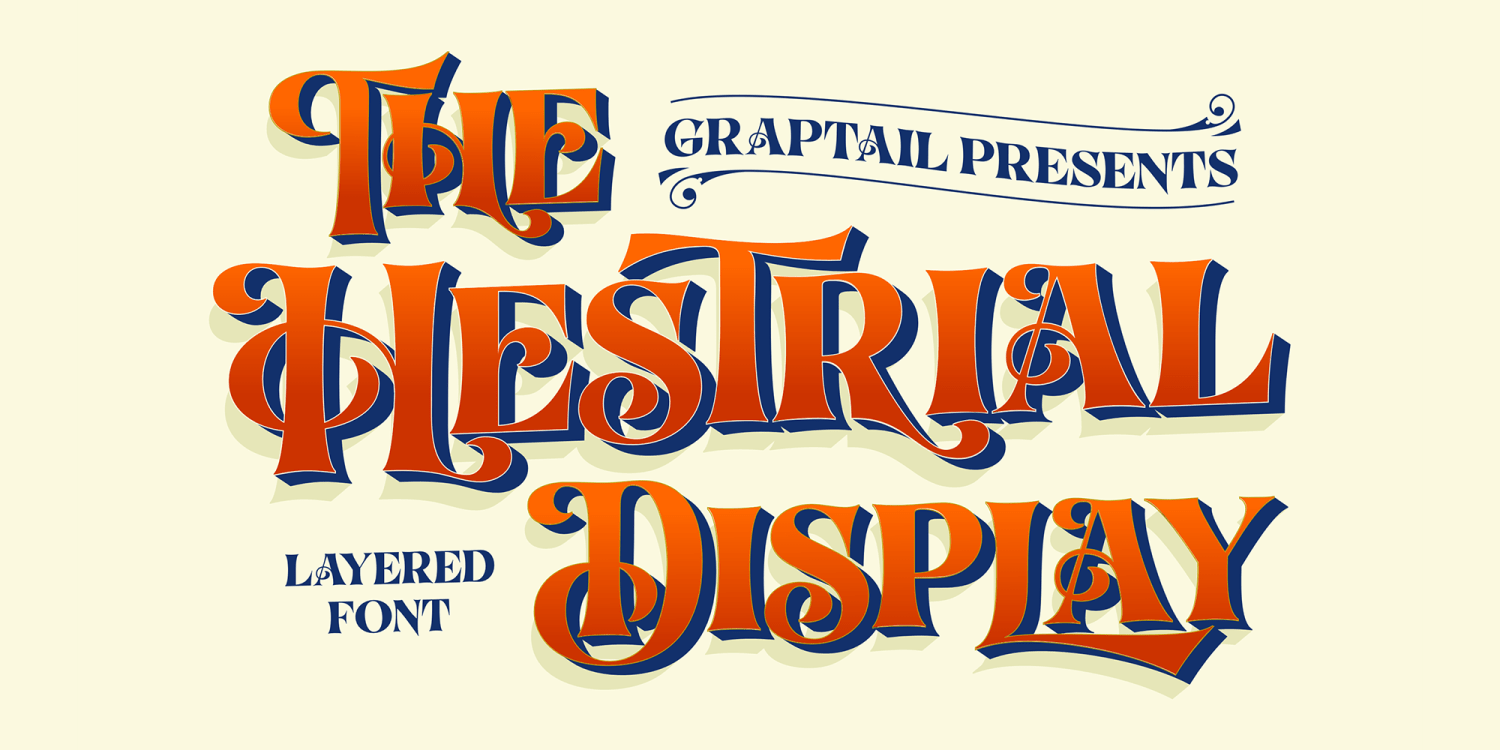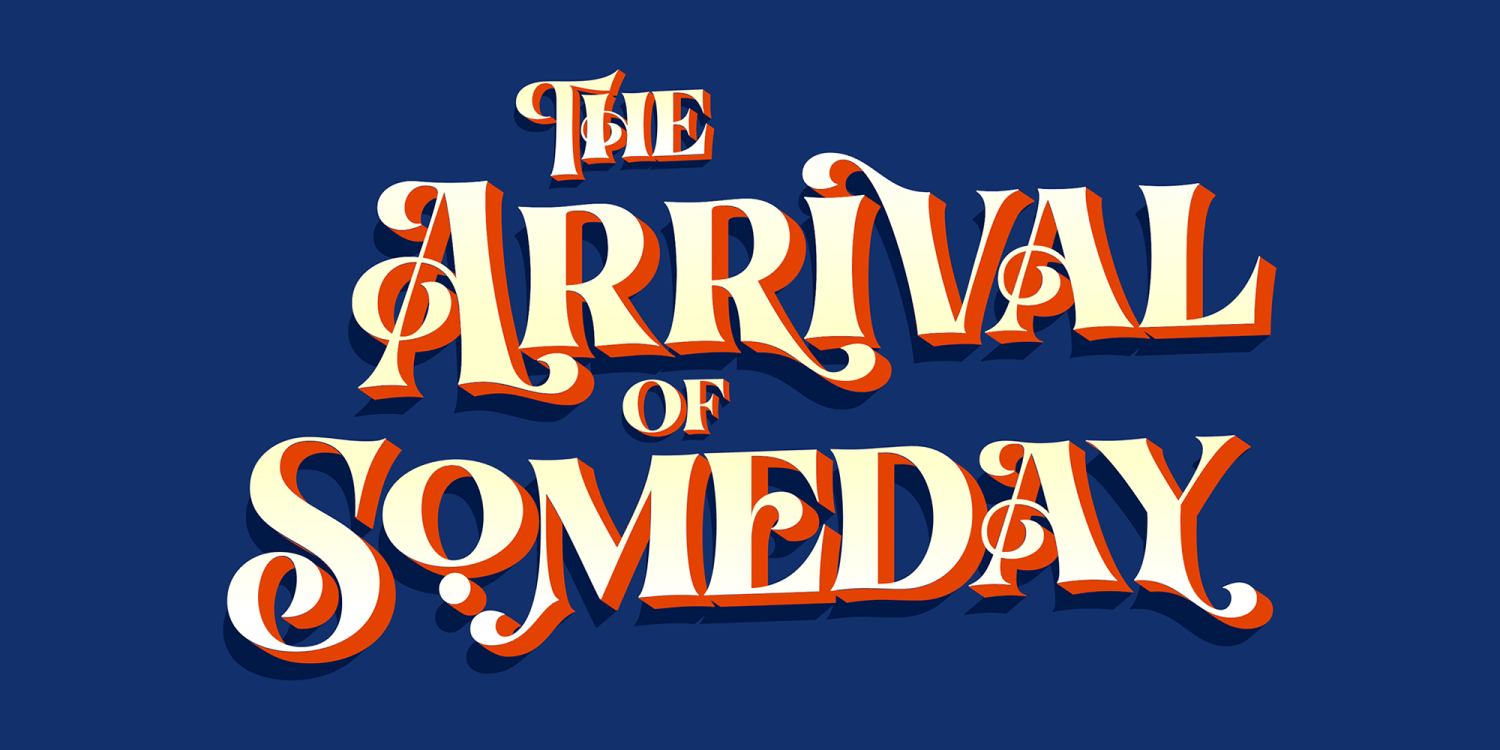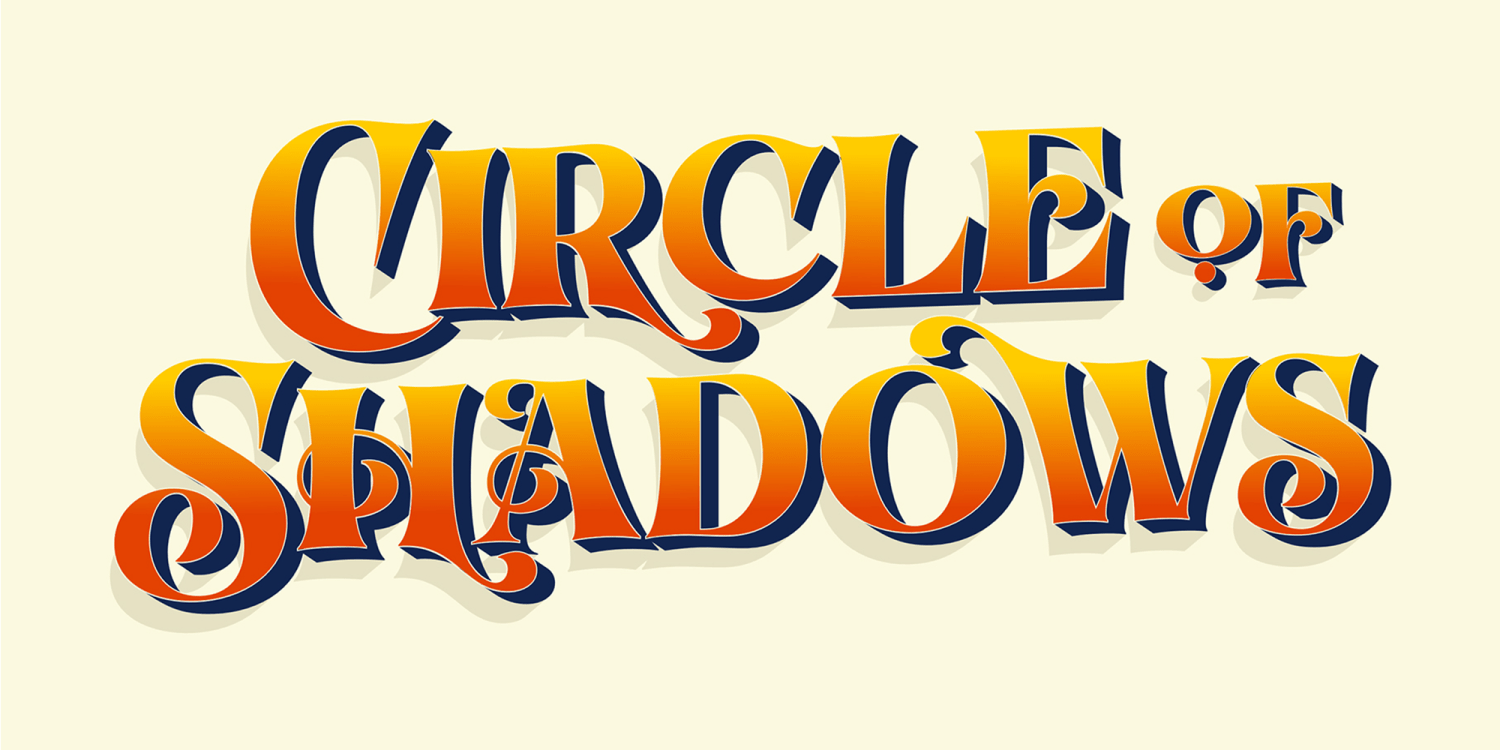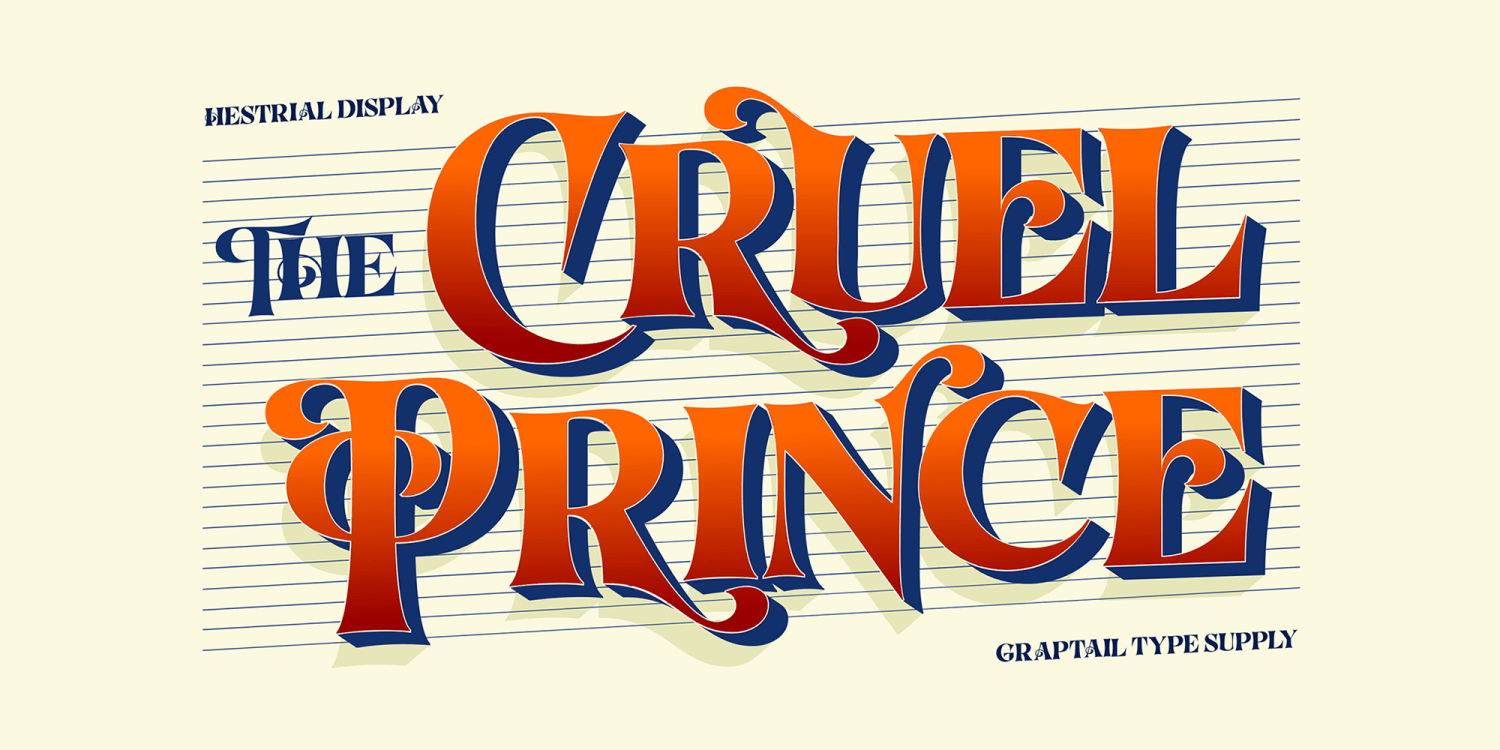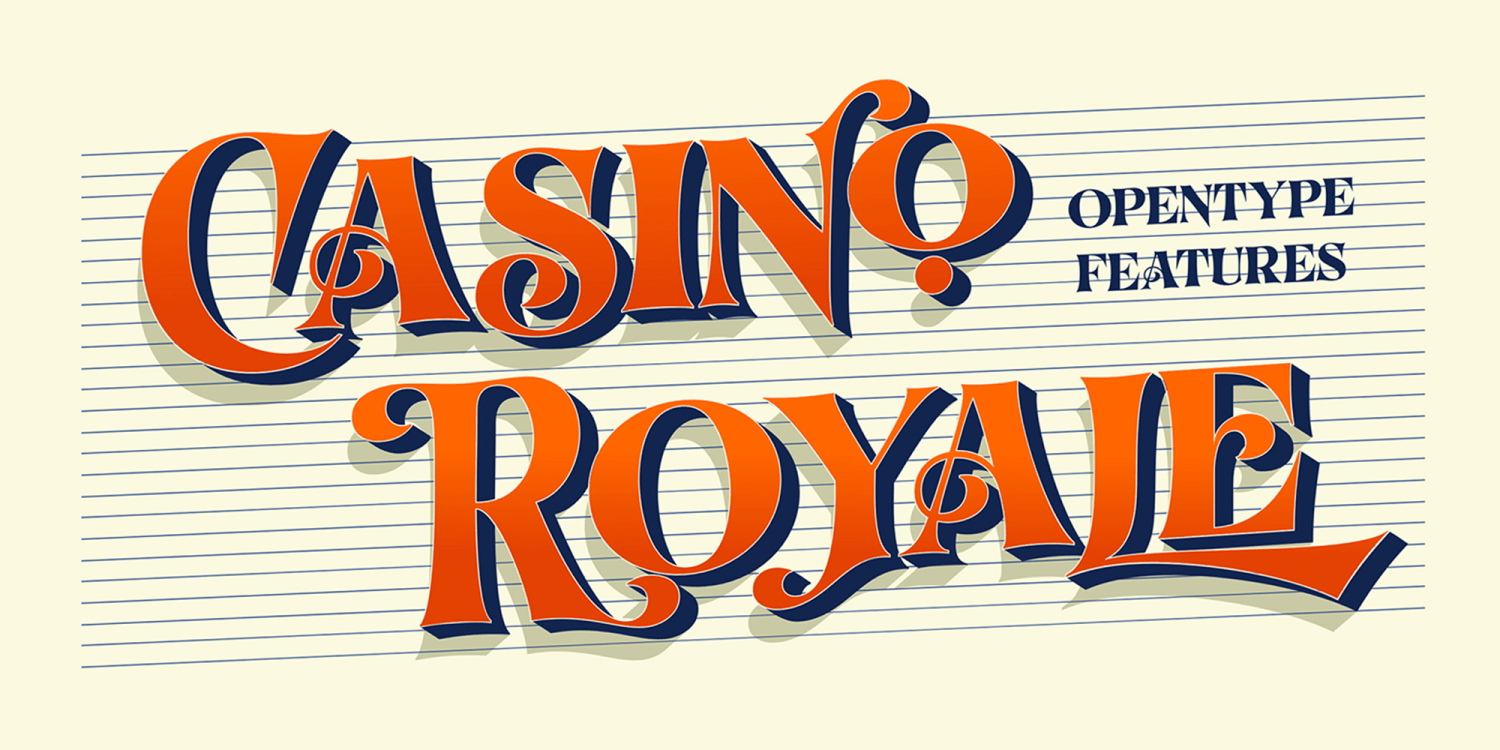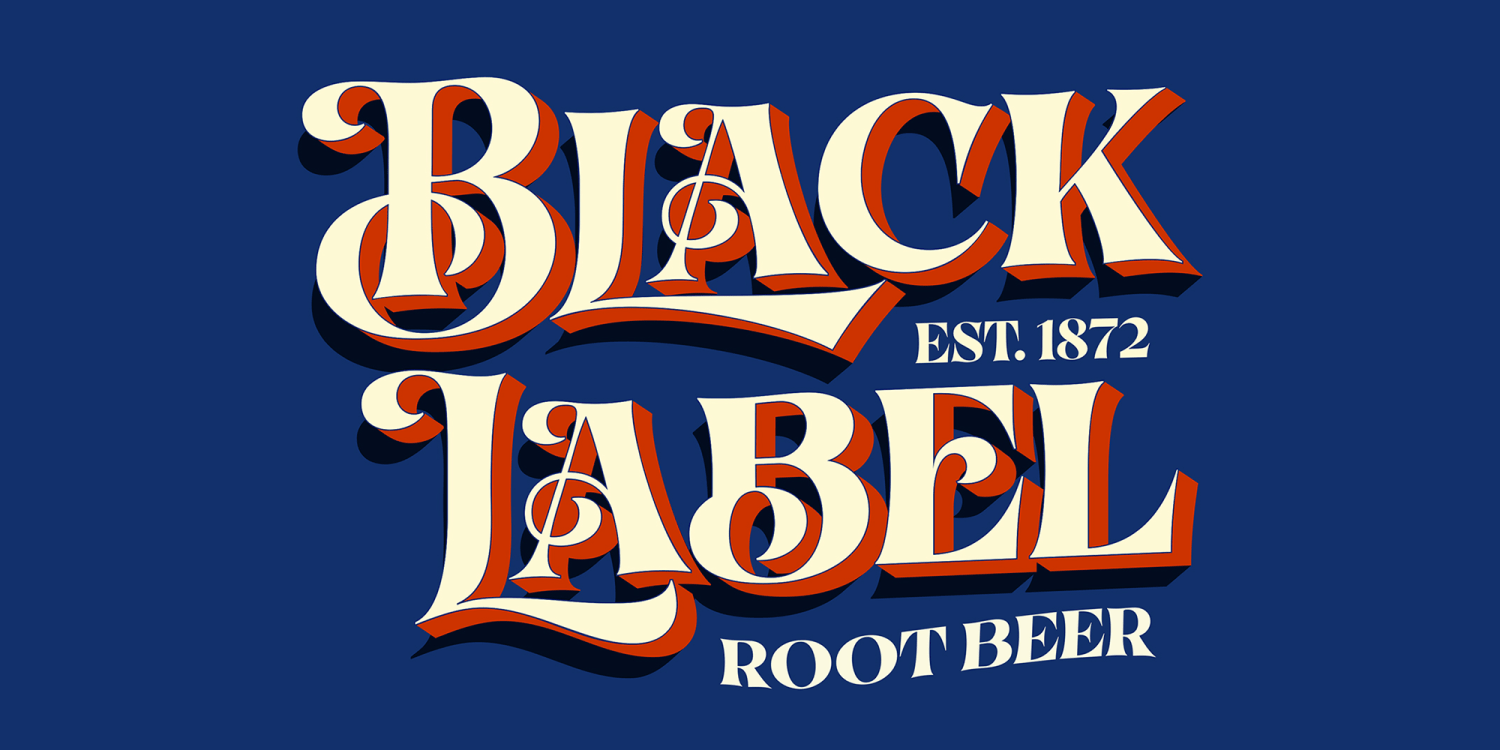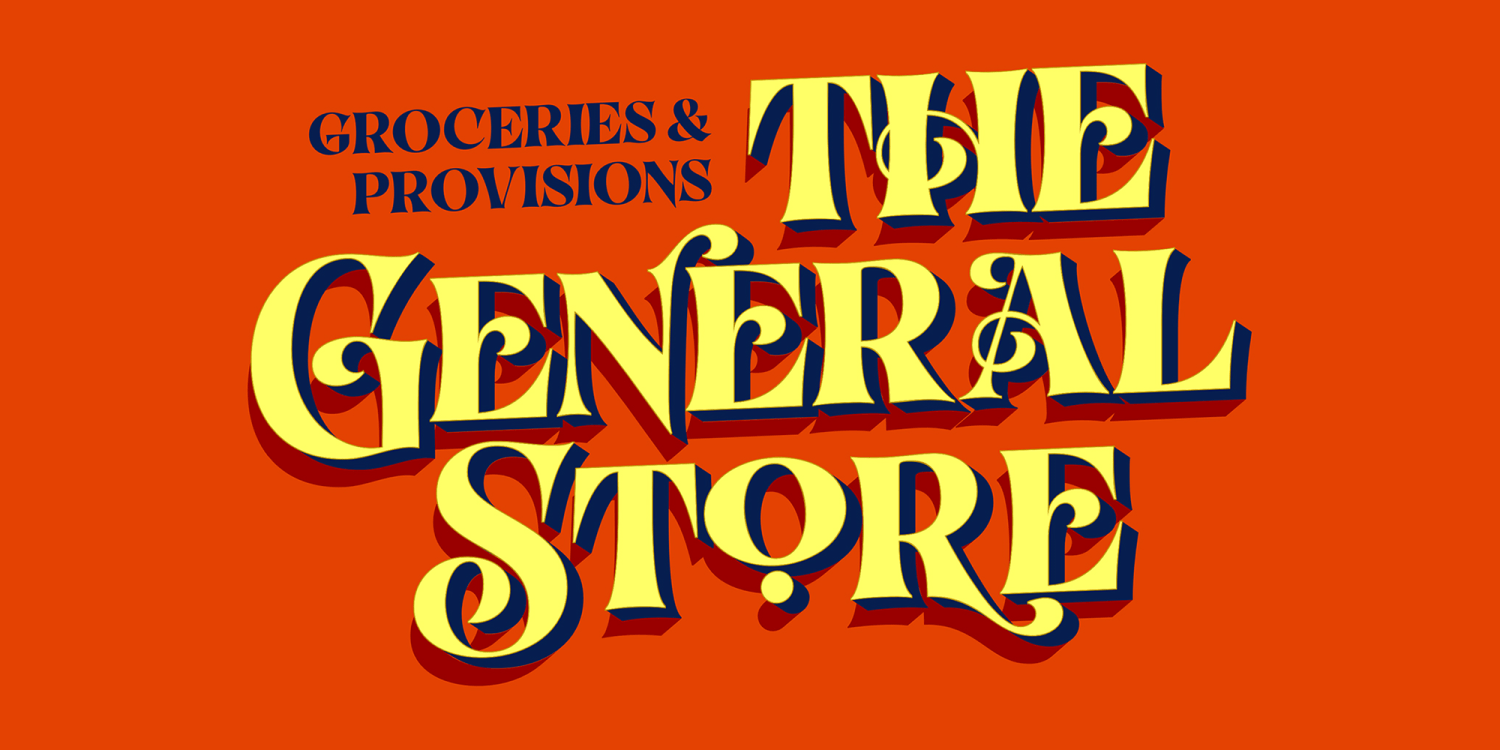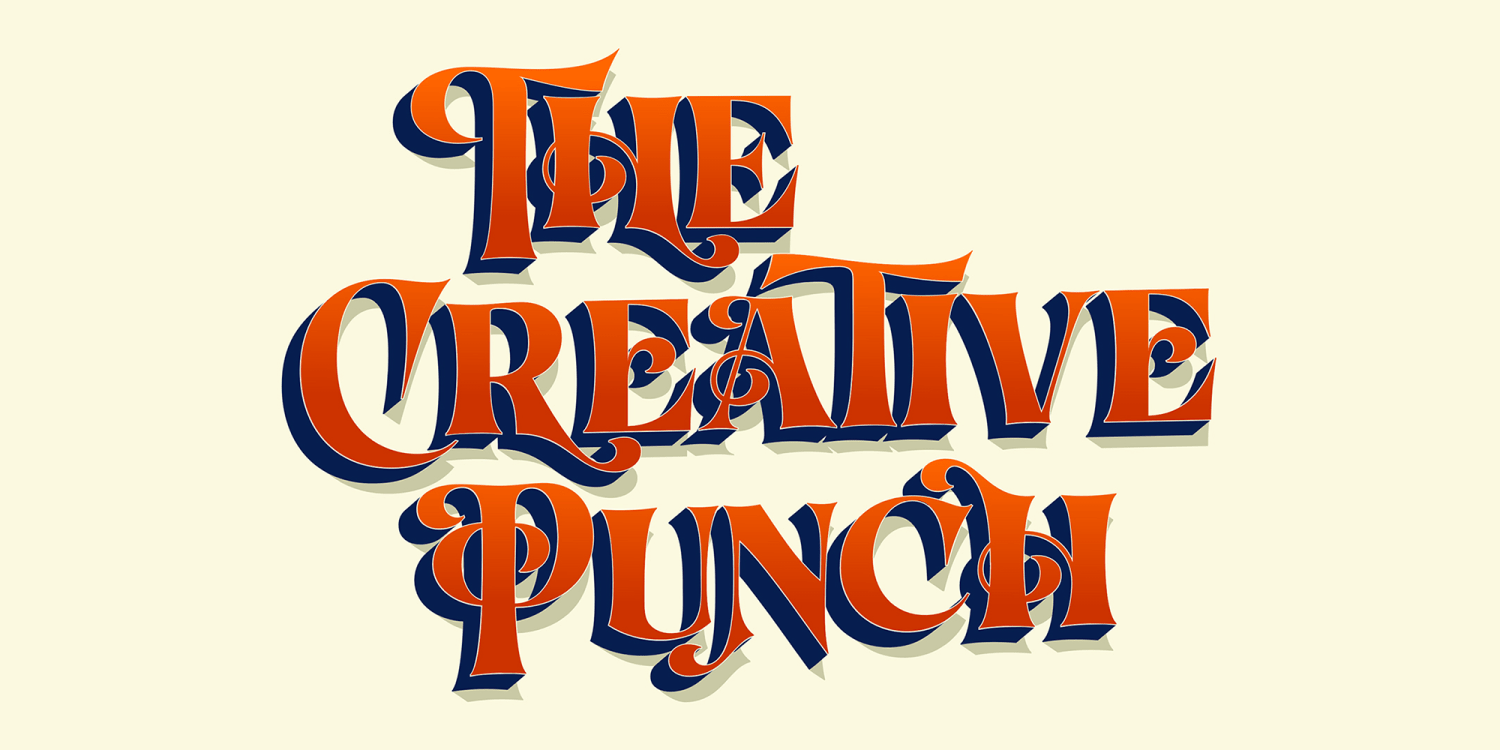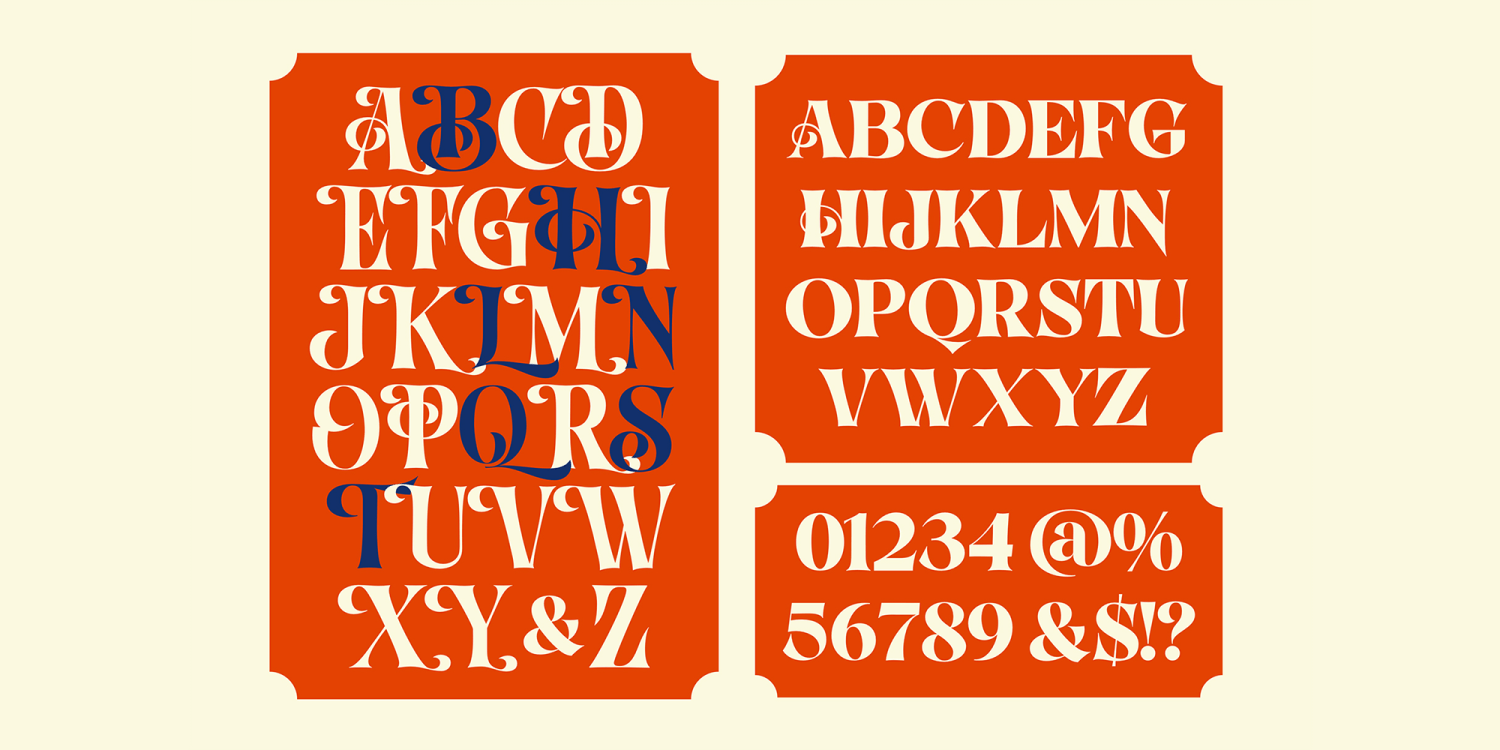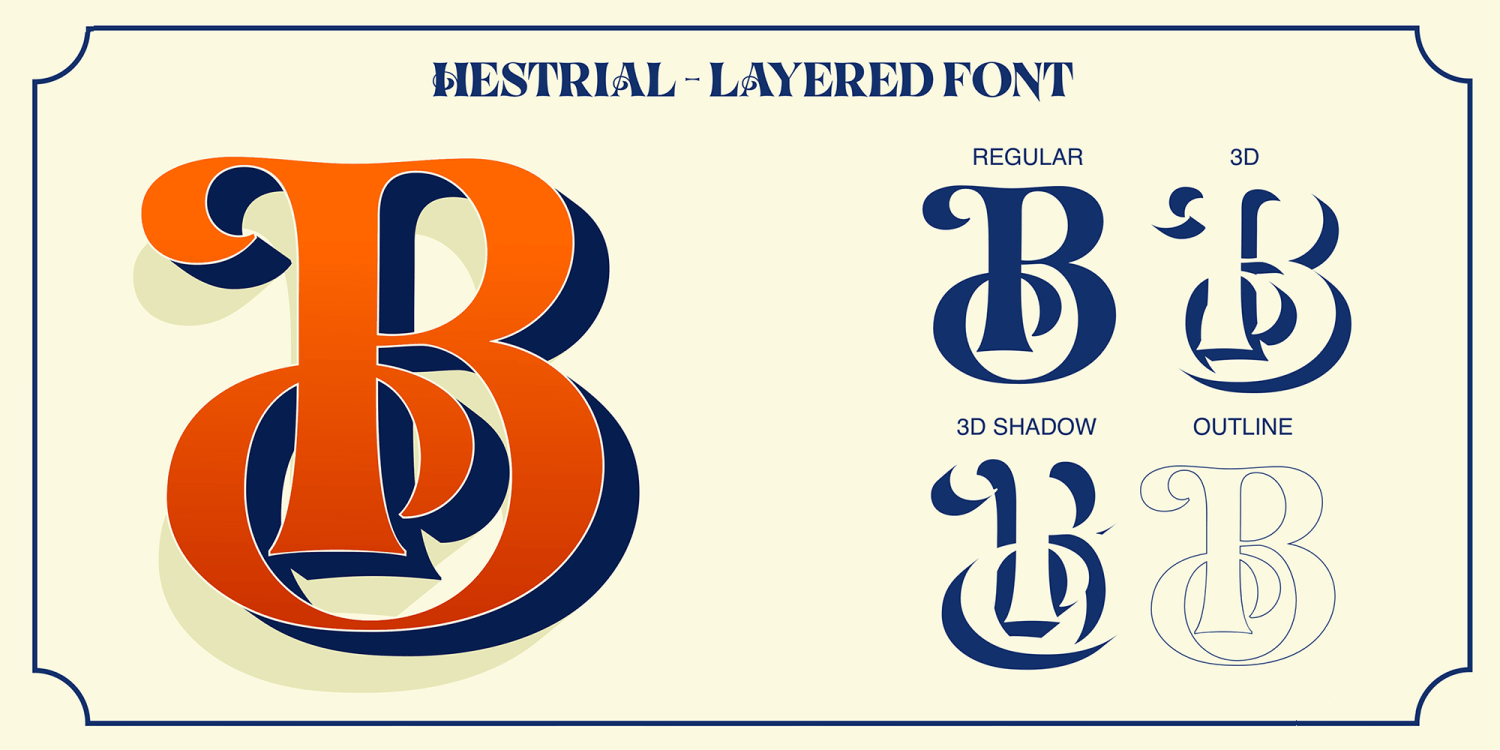
Hestrial
Hestrial is a font display is made by hand, inspired by classic posters.
Hestrial comes with uppercase, lowercase, numerals, punctuations and so many variations on each characters include opentype alternates, common ligatures and also additional swash to let you customise your designs. Perfect to use for Logotype, Letterhead, Poster, Apparel Design, Label and etc.